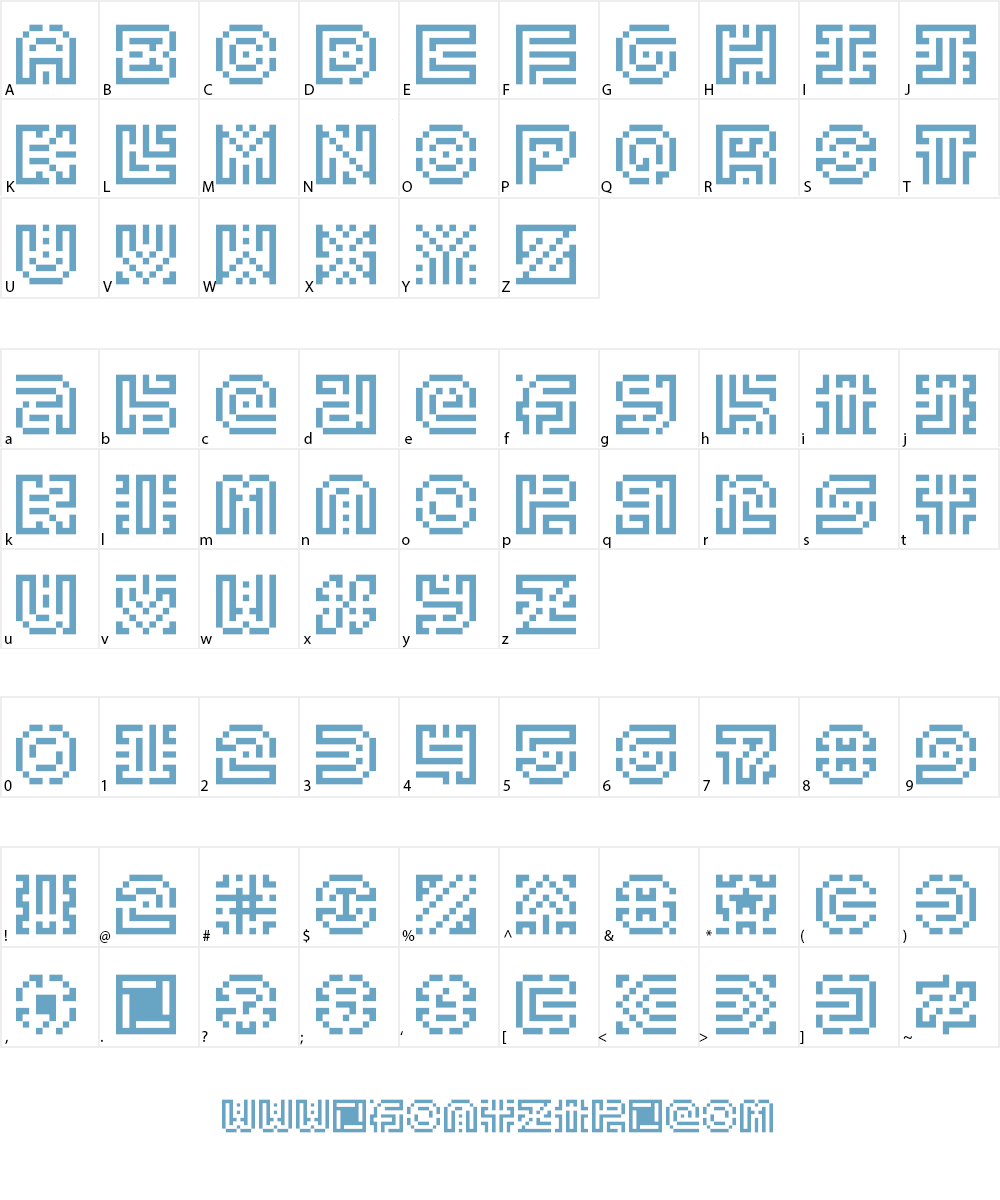
A chimera (fusion) which combines inline-versus-outline, maze, and other techniques to produce a timeless look.
Original size: 6.75pt (use multiples of this value for pixel perfection)